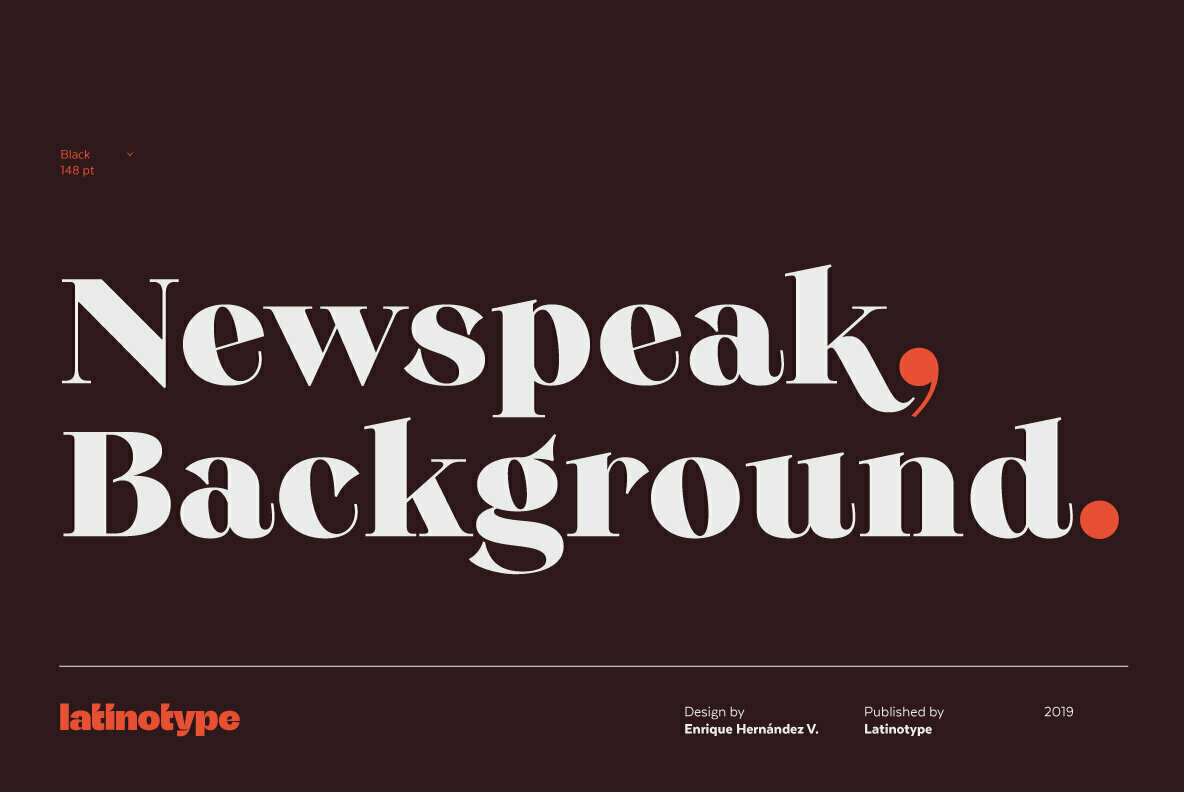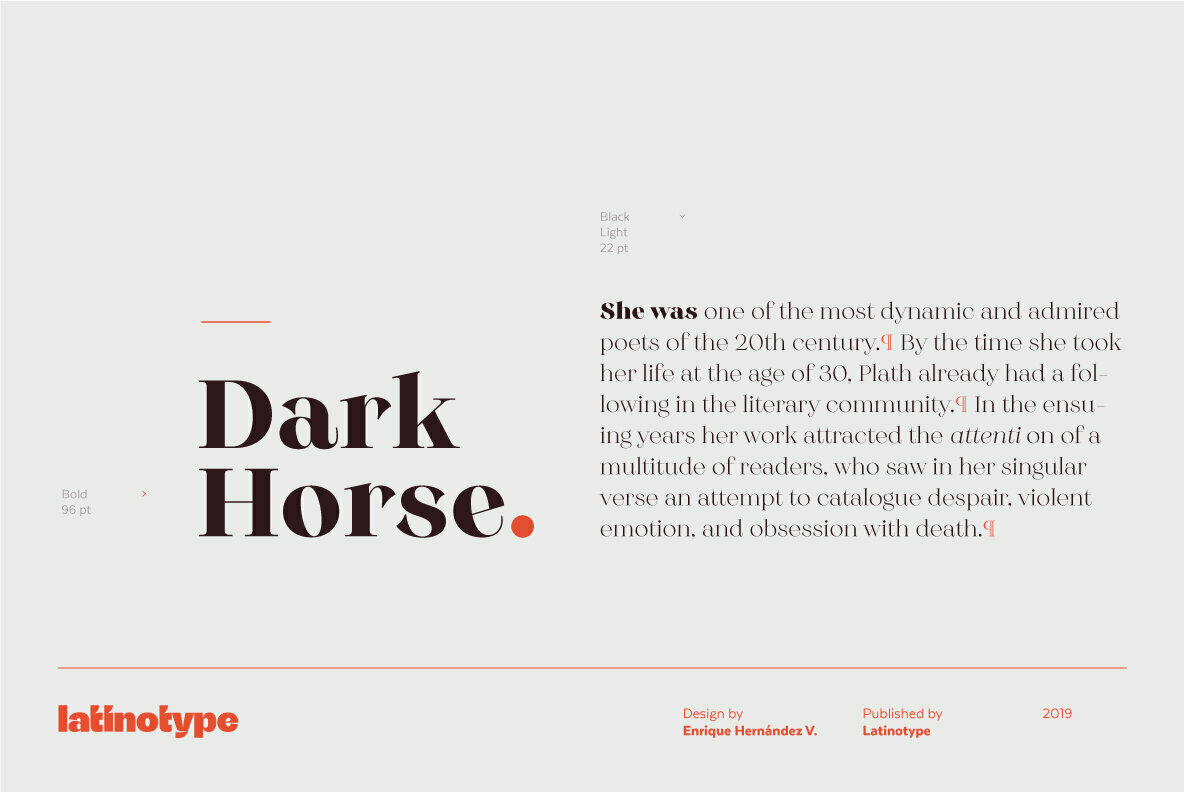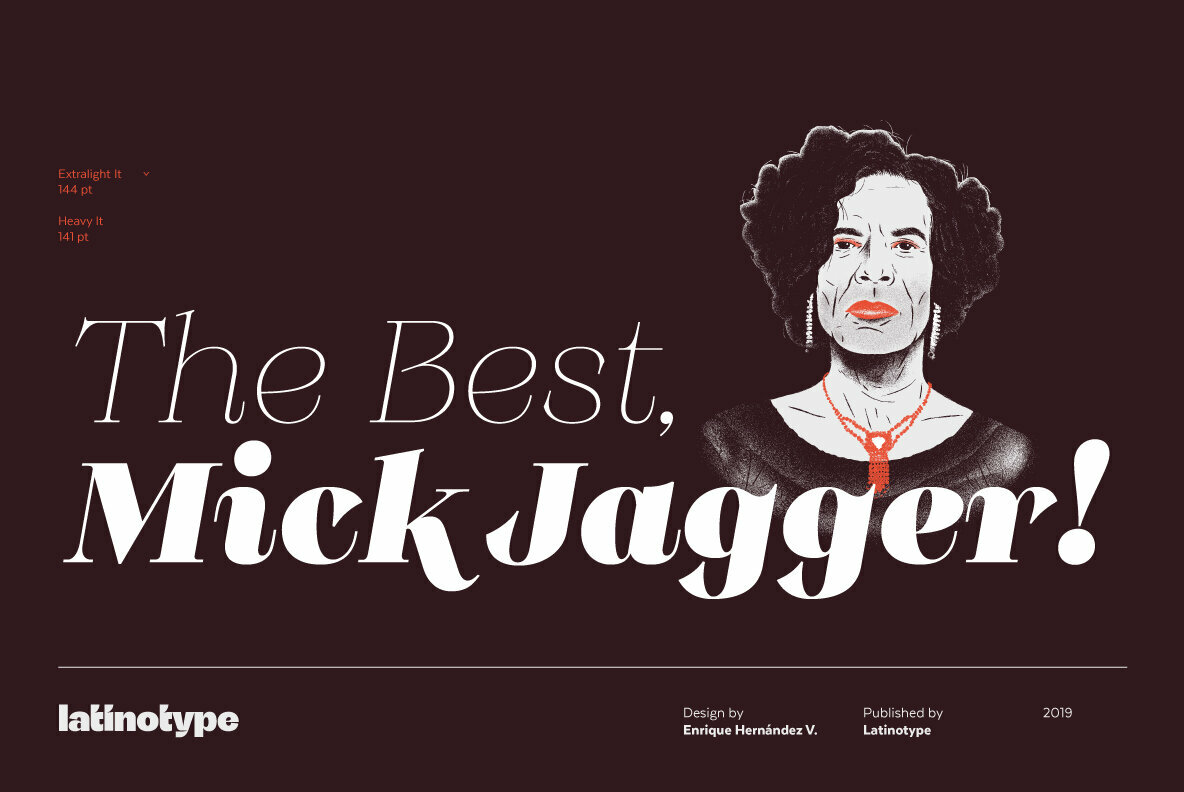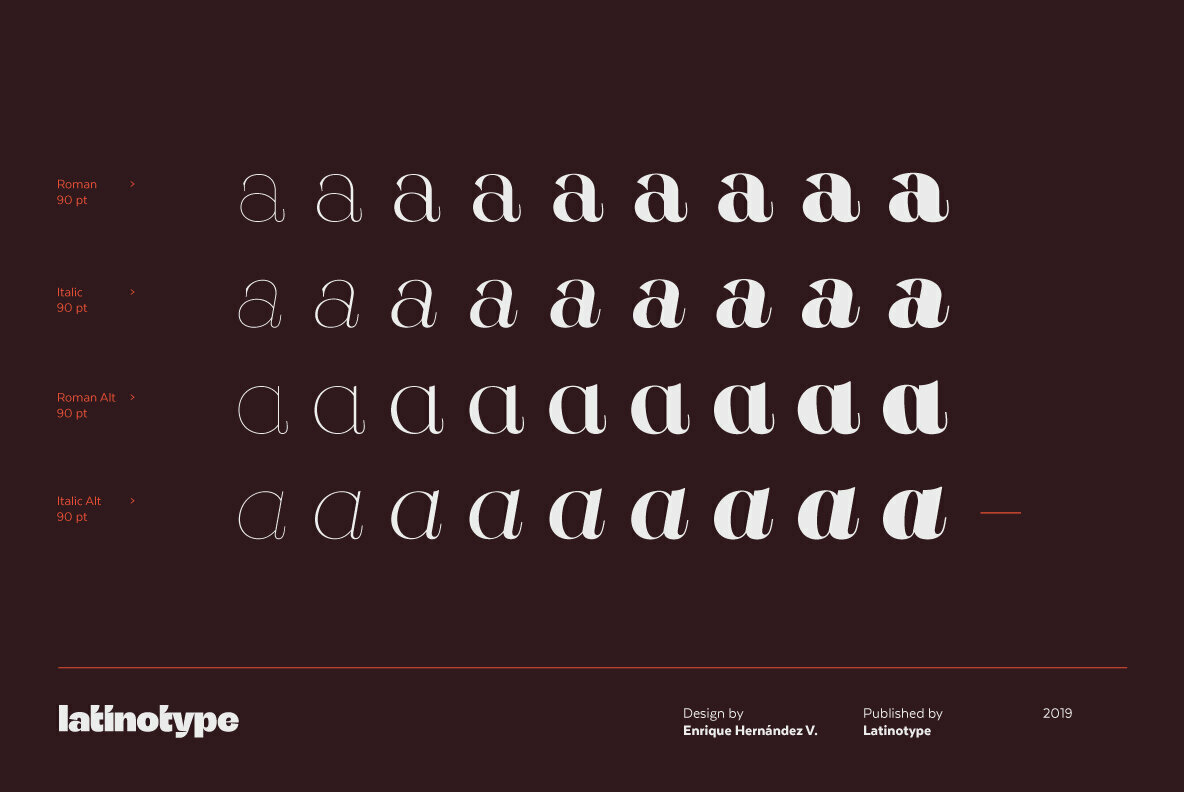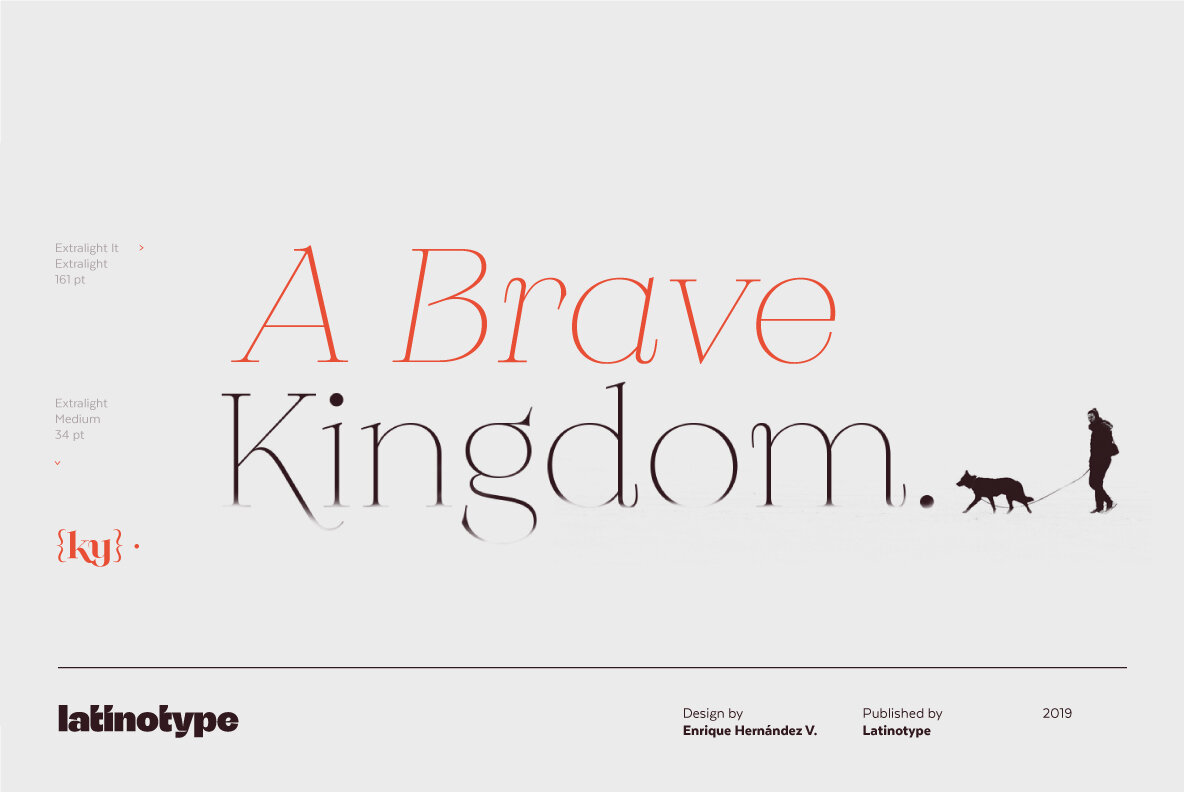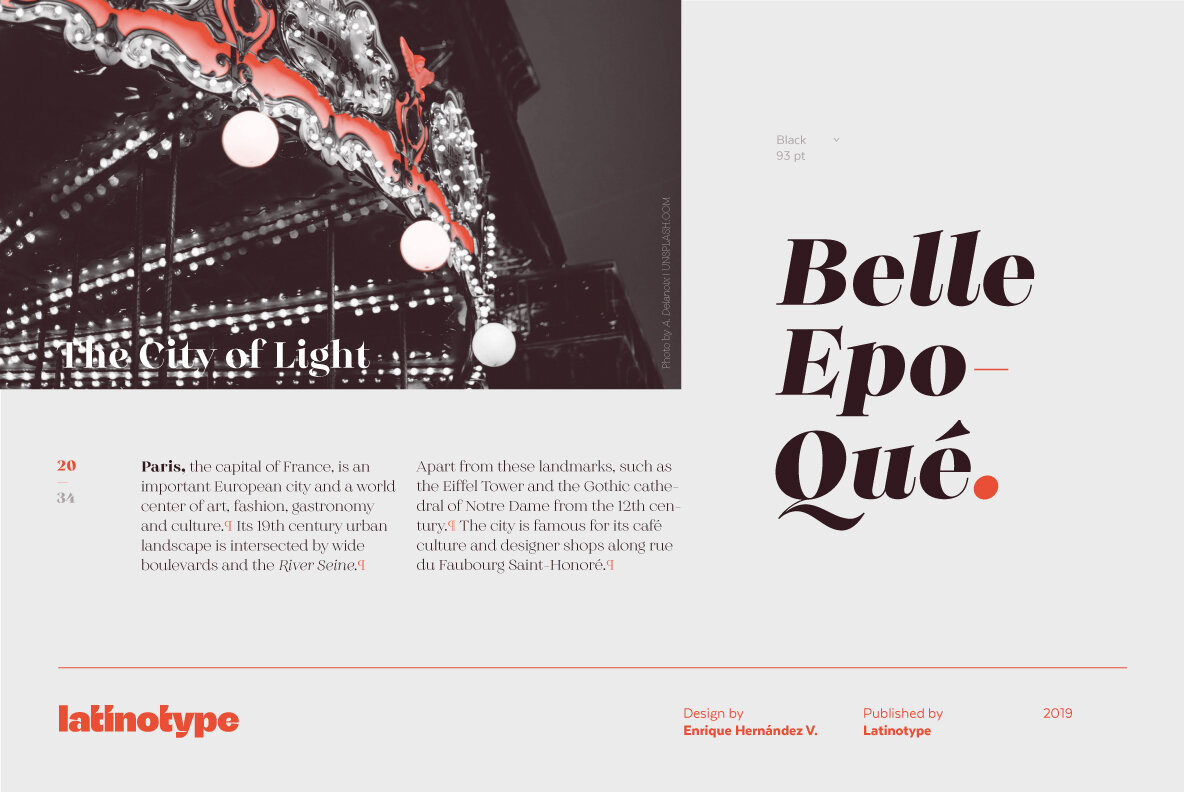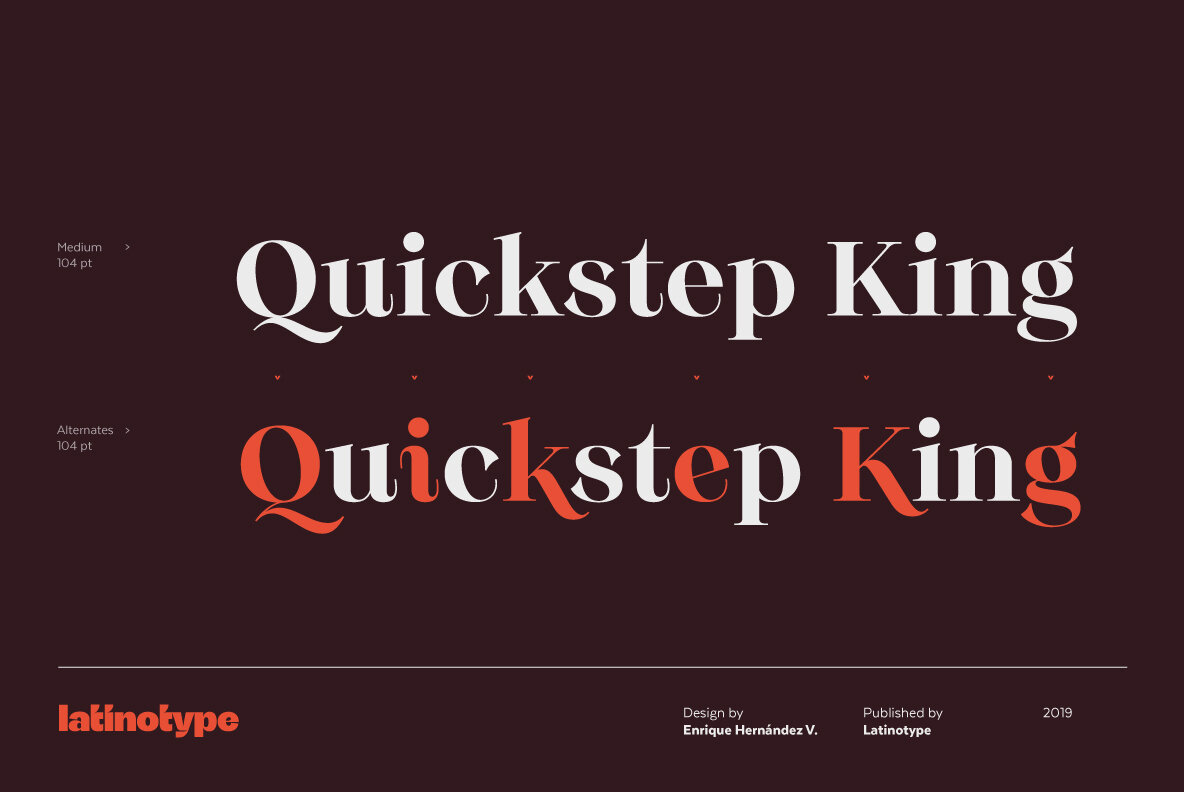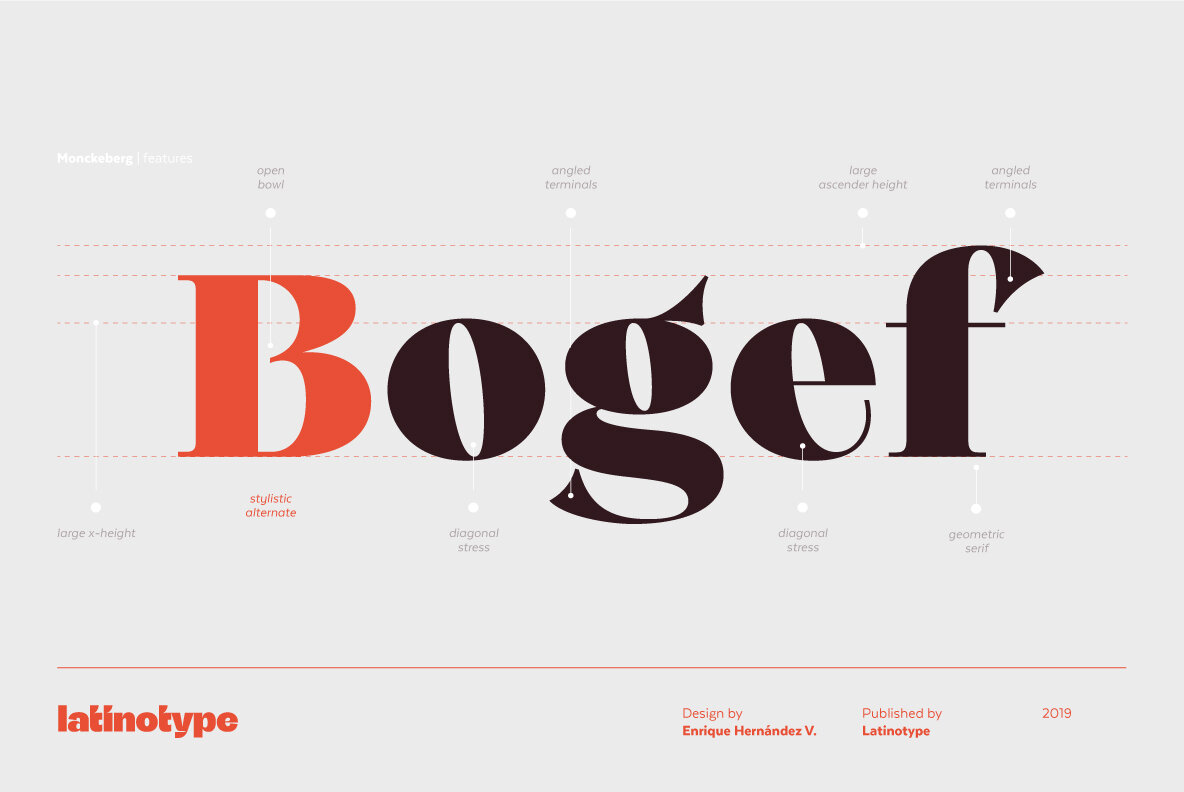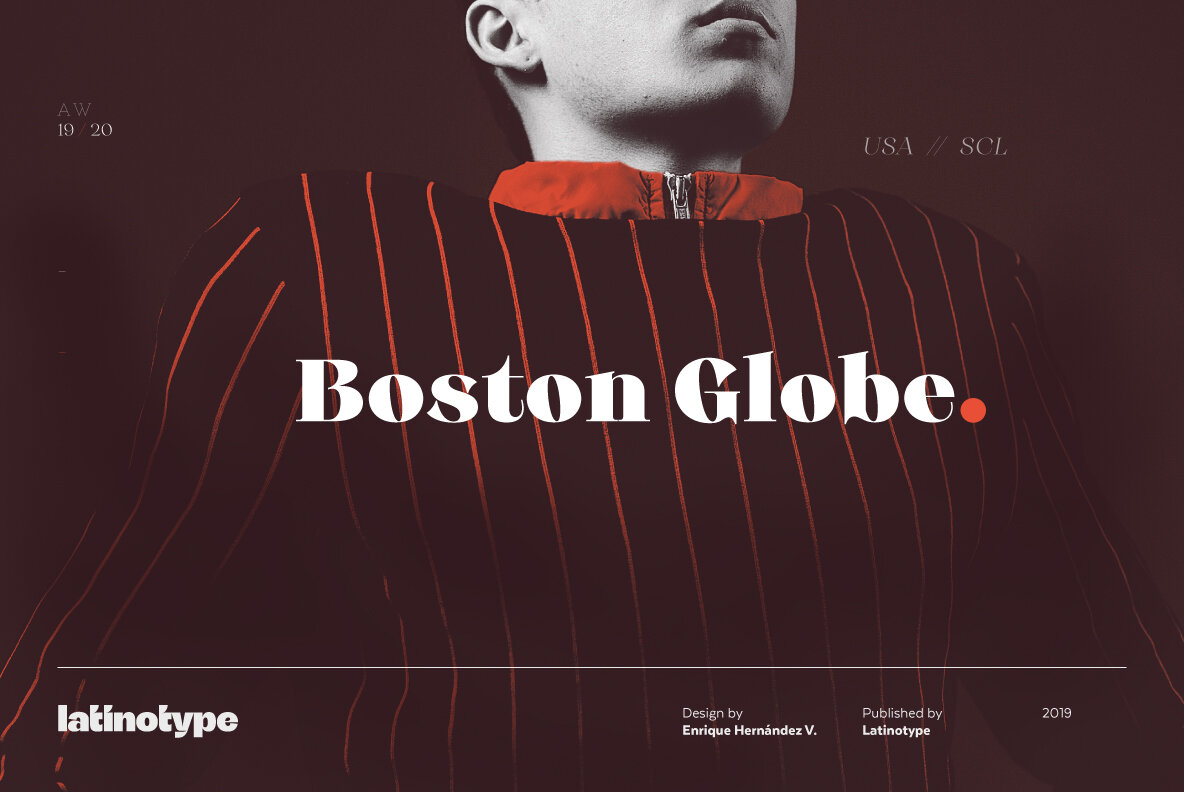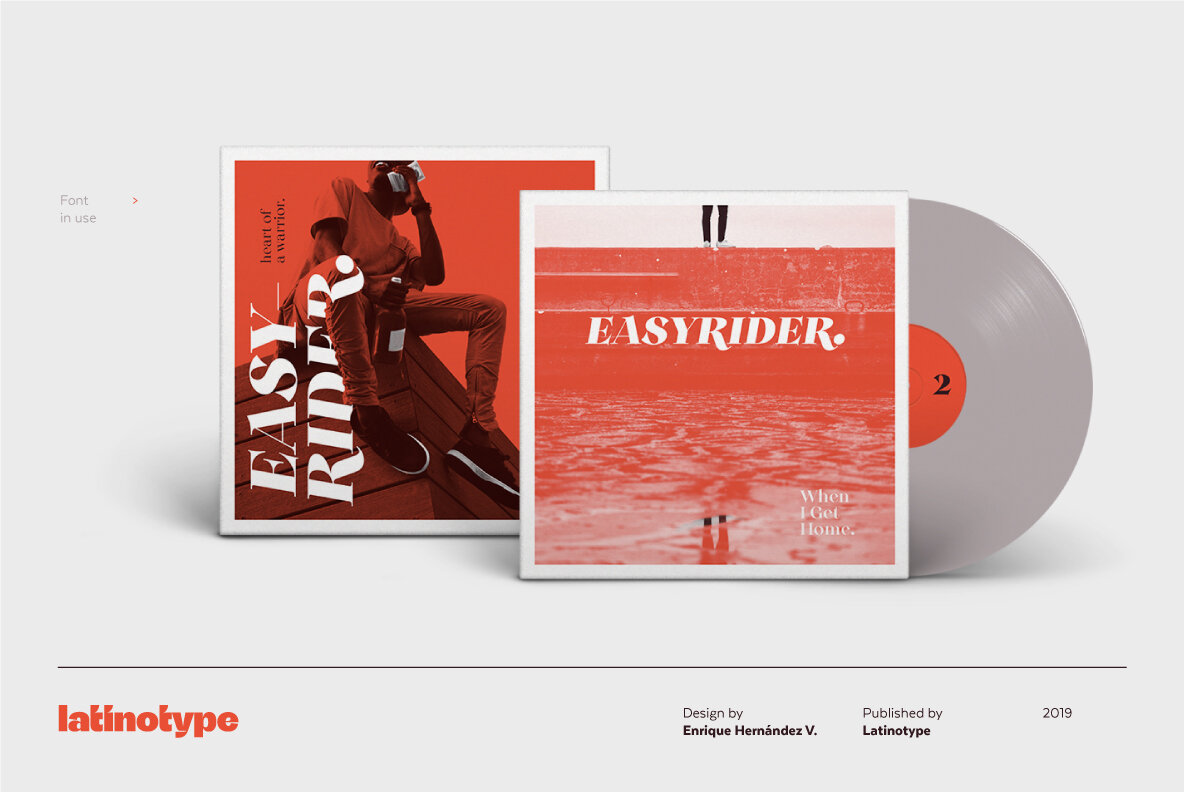
Monckeberg Font
Monckeberg is an expressive font with a strong personality which is based on 15th century classic Venetian typefaces. High contrast between thin and thick strokes, calligraphic features and diagonal stress are its most striking characteristics.
Monckeberg is ideal for short text and paragraphs, and specially designed for logos, branding, editorial design and web use. Monckeberg consists of 2 subfamilies of 9 weights, from Thin to Heavy, with matching italics, resulting in a total of 36 fonts. The basic family is classic and elegant while the alternative version allows for greater design freedom. Monckeberg contains 511 characters that support over 200 Latin-based languages.